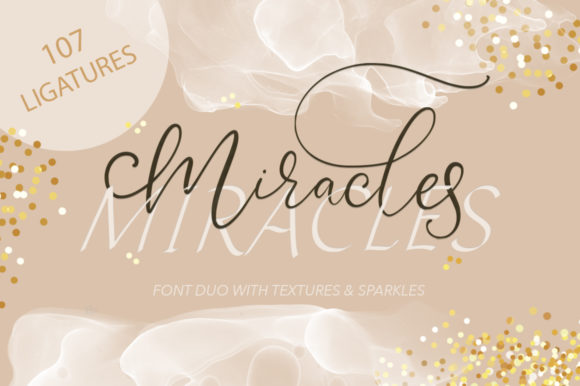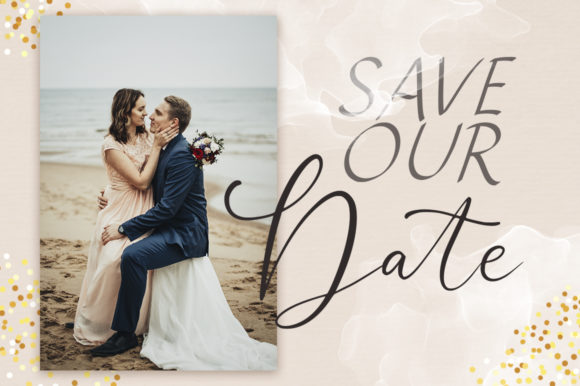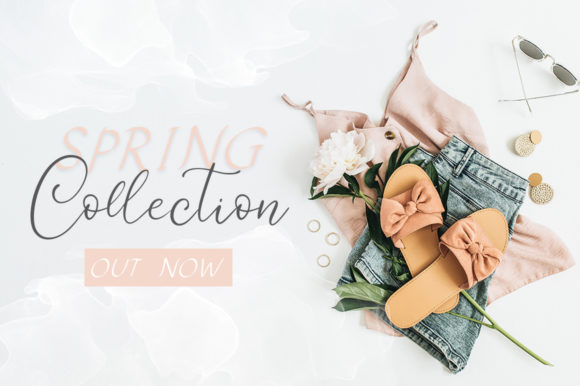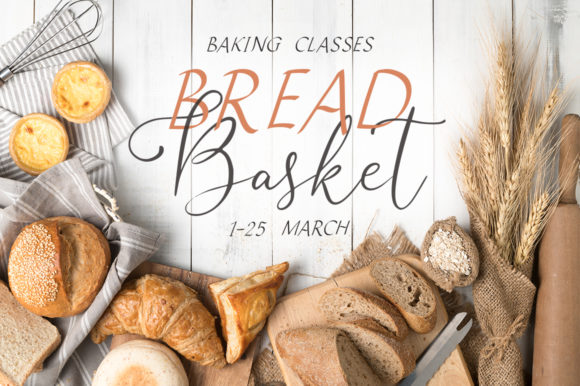
About Miracles Duo Font
The Miracles is a beautiful font duo. It includes an elegant script and sans serif font. It was created in order to repeat the peculiarities of hand-writing where each letter is special and where combinations of letters are unique.
This modern and expressive duo is perfect for posters, greeting cards, t-shits, branding materials, quotes and any other amazing projects you are working on.
Each font can be used separately. In conjunction they give a sense of lightness and delicacy – real “miracles”